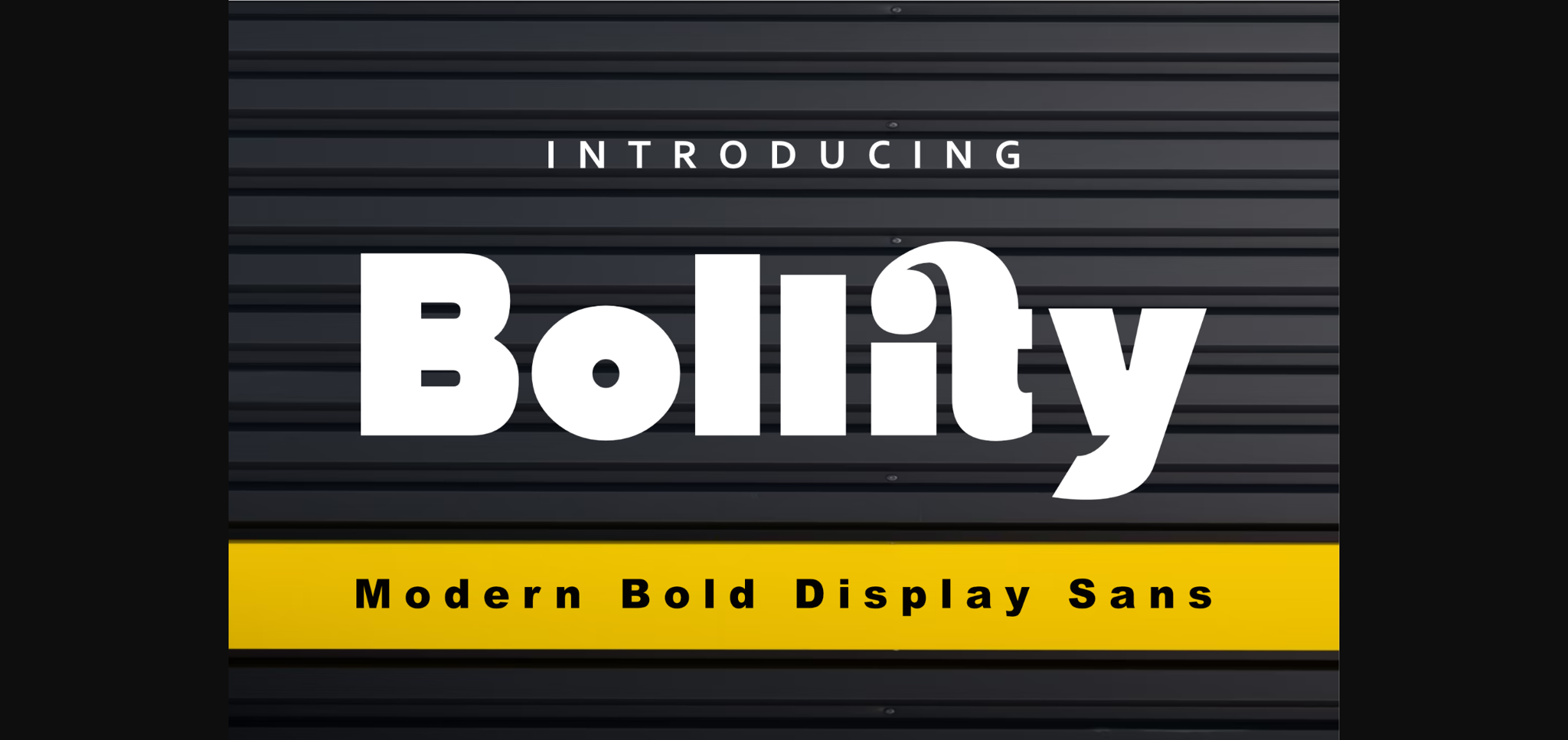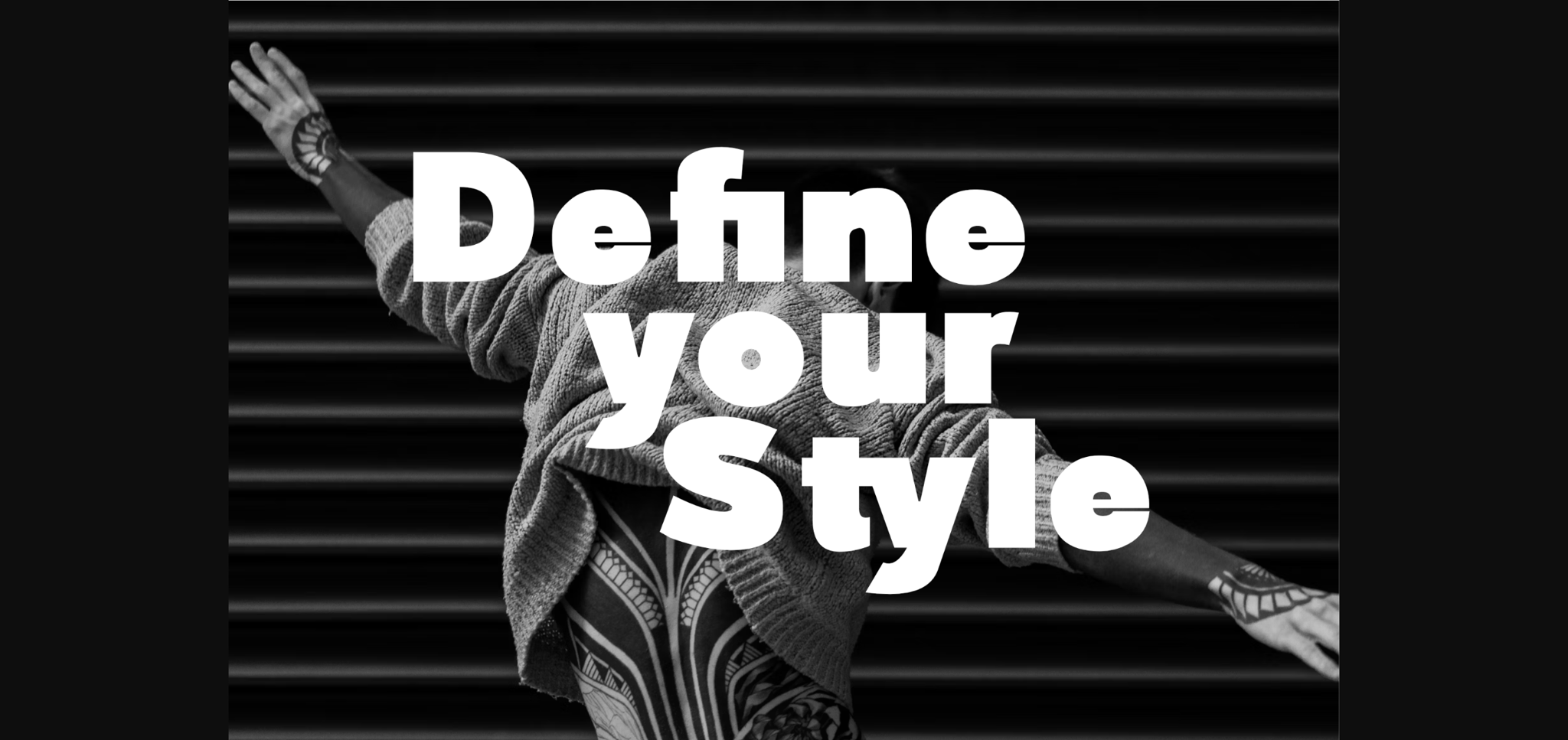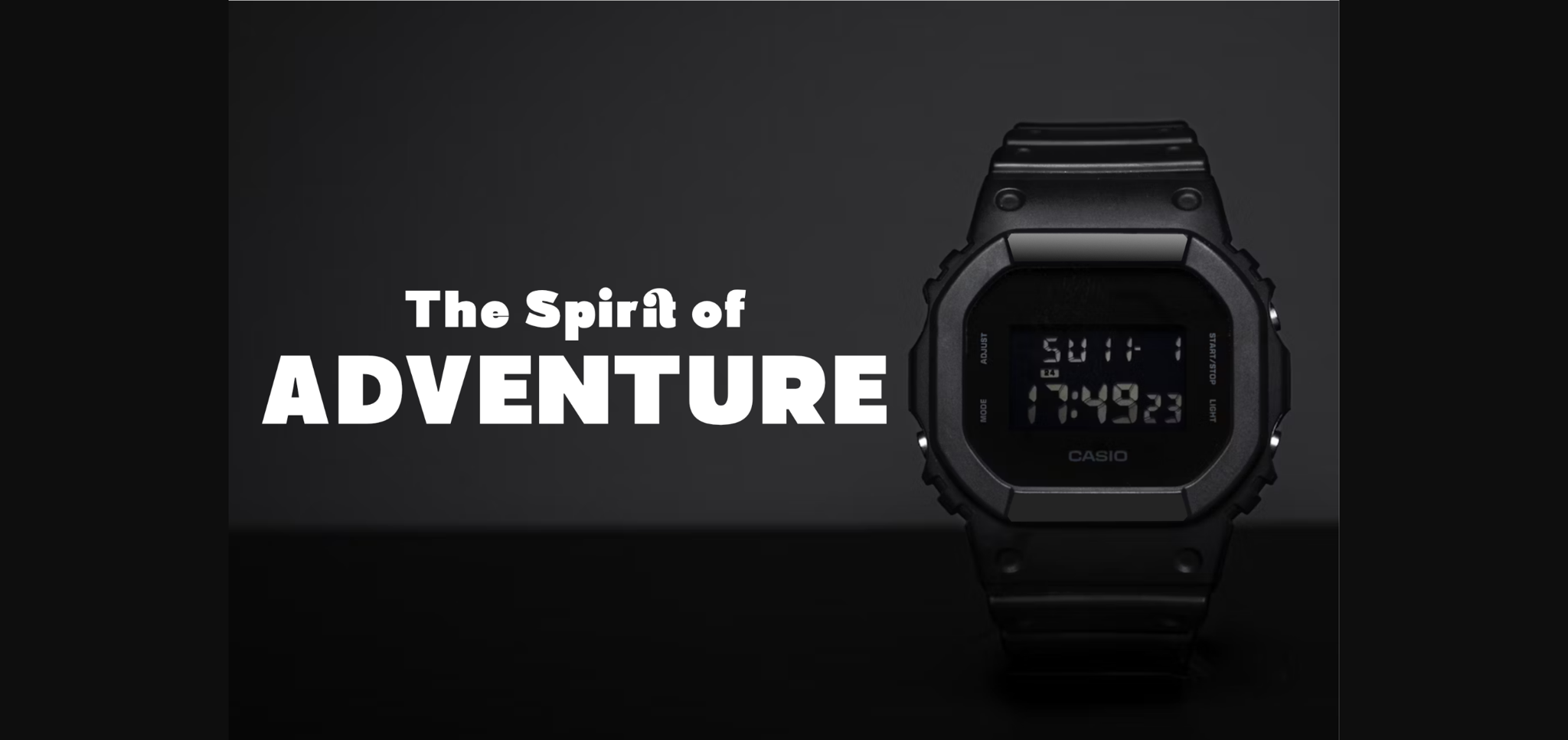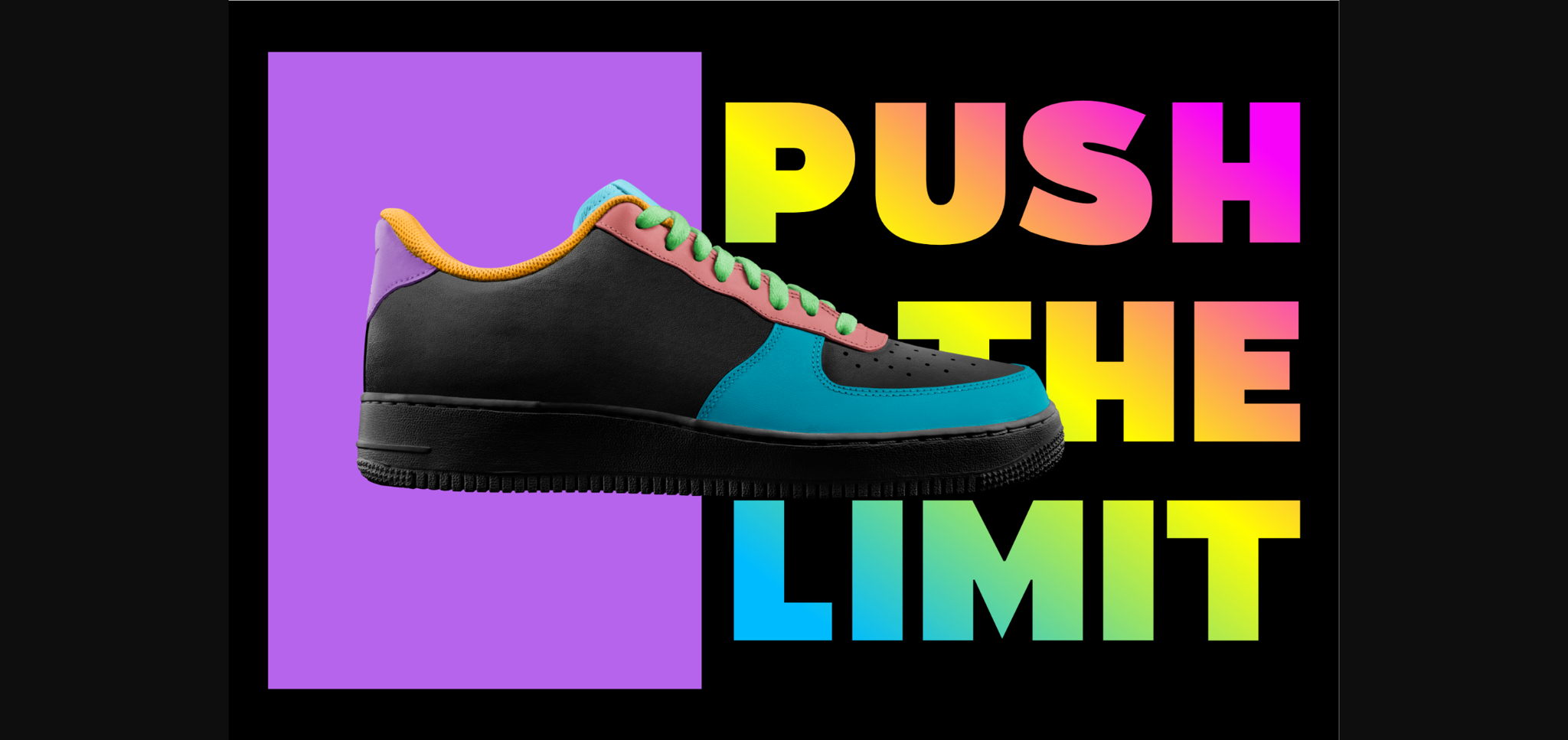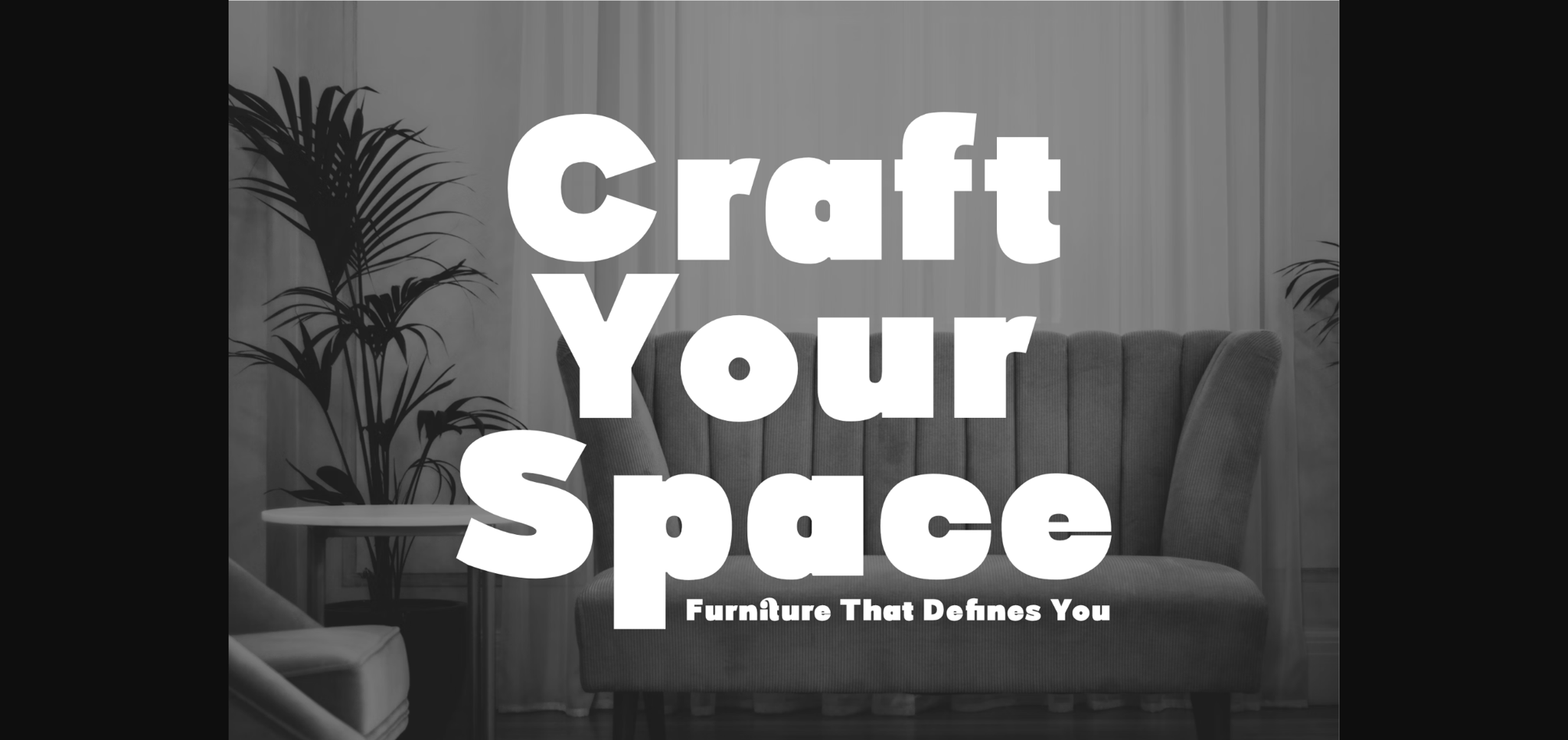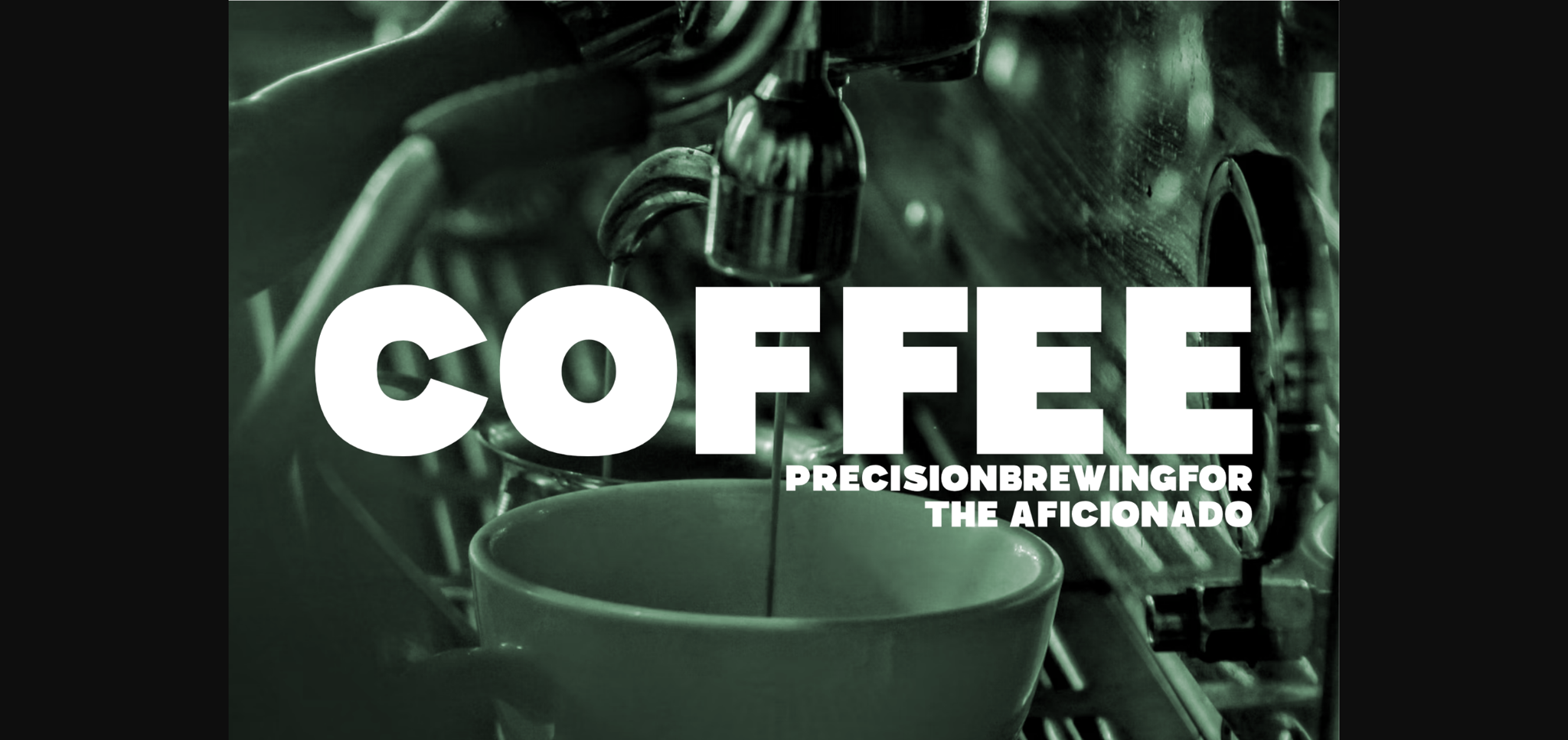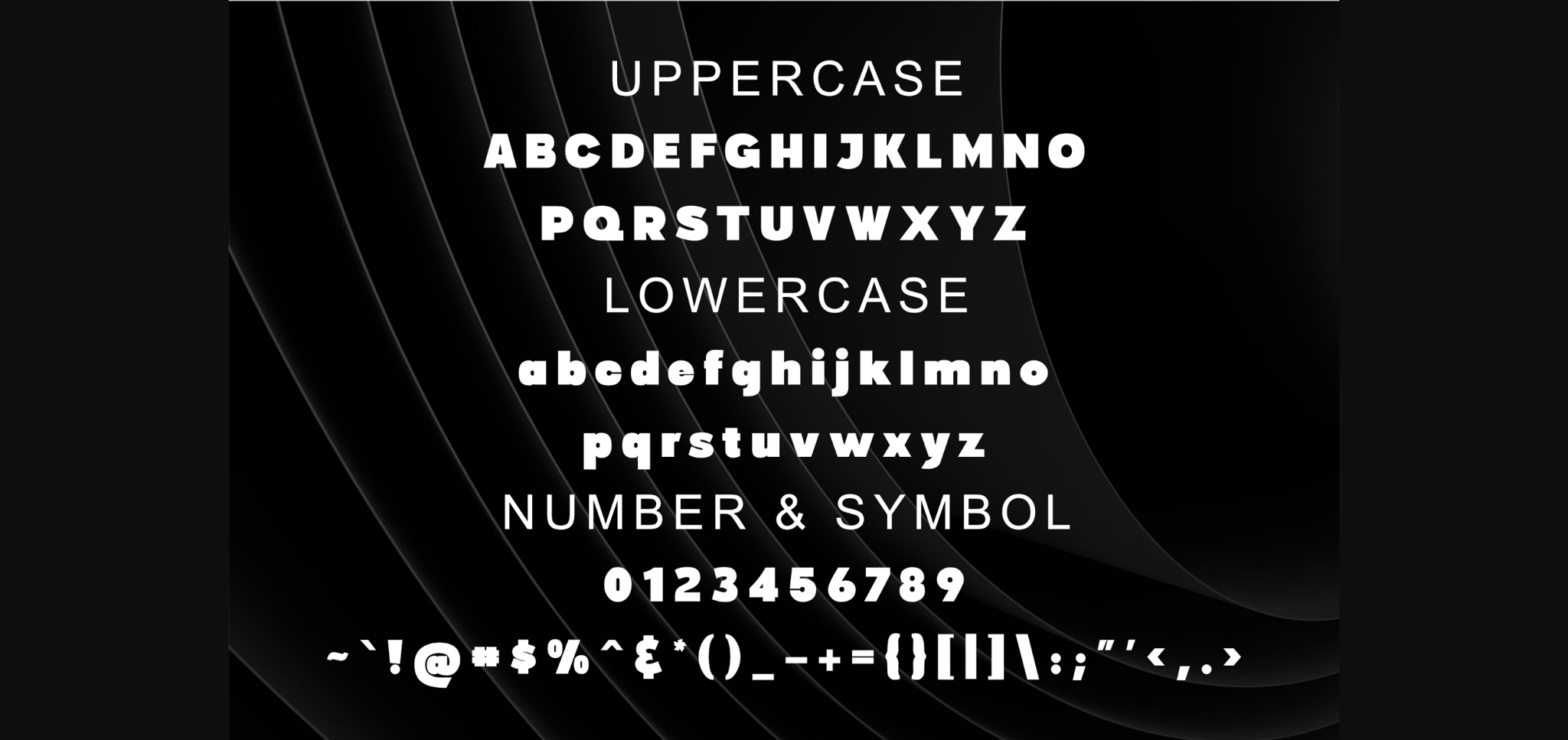
Bollity Font
About Bollity Font
Introducing Bollity sans-serif font, designed with a bold body and unique ligatures, making it a standout choice for various projects. Bollity’s thick and impactful appearance is perfect for headlines, logotypes, and more, ensuring your message captures attention. Bollity is versatile enough to enhance branding, advertising, and editorial designs with its modern and dynamic flair. Its distinctive ligatures add a creative flair, blending seamlessly into designs that require a modern and stylish touch. Whether you’re crafting branding materials, promotional content, or eye-catching titles, this font offers versatility and aesthetic appeal, elevating your project’s visual impact.